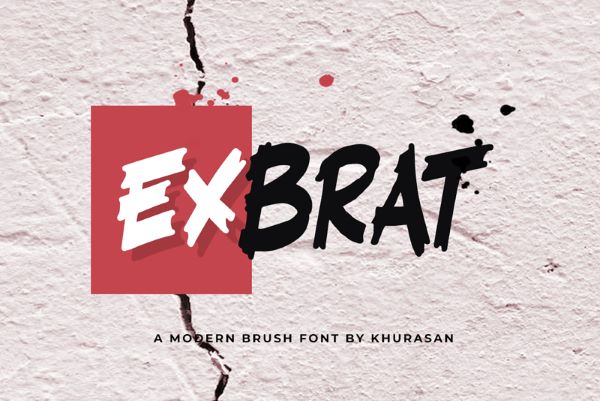
Exbrat Font
Exbrat Font is a Brush Font by Khurasan — a bold, sophisticated script display typeface that fuses the finesse of a flowing script with the raw confidence of a strong brush stroke in a way that immediately stands apart from the crowd. Its all-caps construction lends a touch of refinement and edge to every design project it graces, without requiring any lowercase characters.